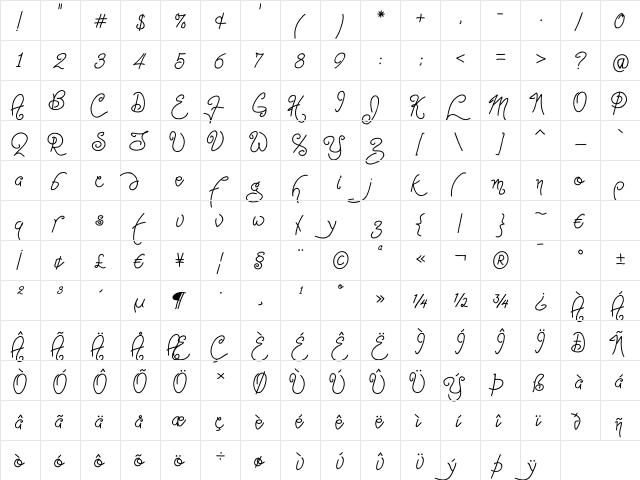
Point-Dexter Regular
Design Context for Point-Dexter Typeface
Point-Dexter is a composed and adaptable typeface that performs quietly and consistently across a wide range of design contexts.